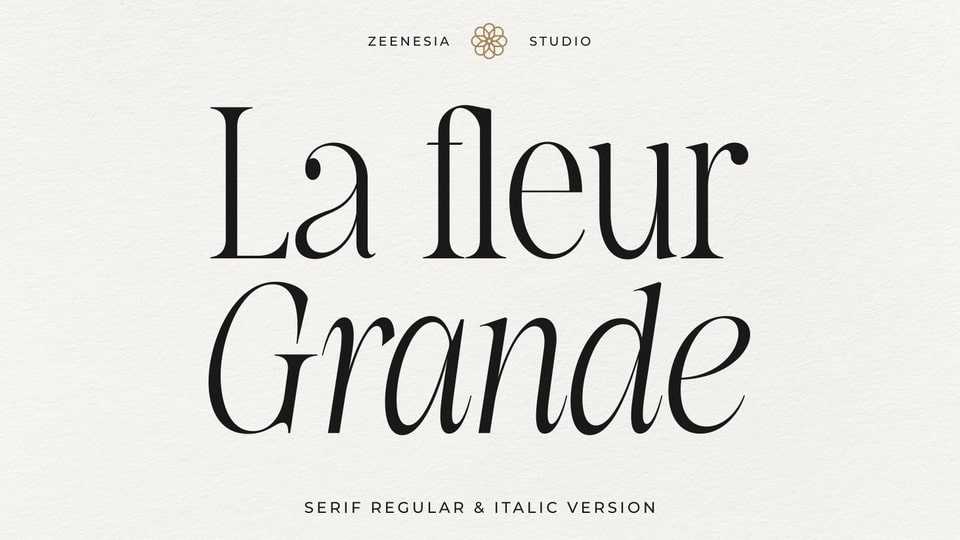
Download La Fleur Grande font, a an elegant and smooth typeface combining regular and italic serif font. It’s a very versatile font that works great in large.
Designer: Zeenesia Studio